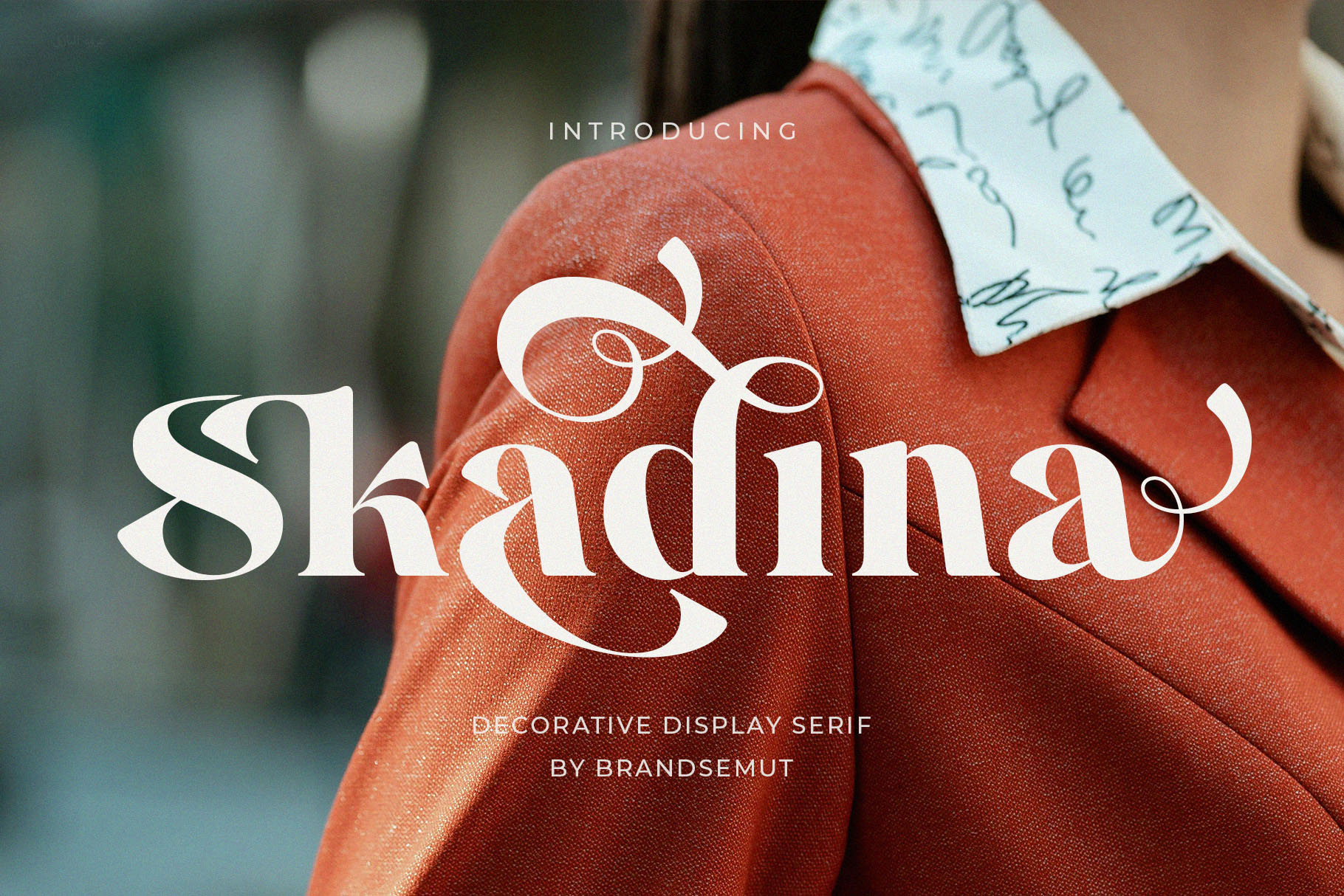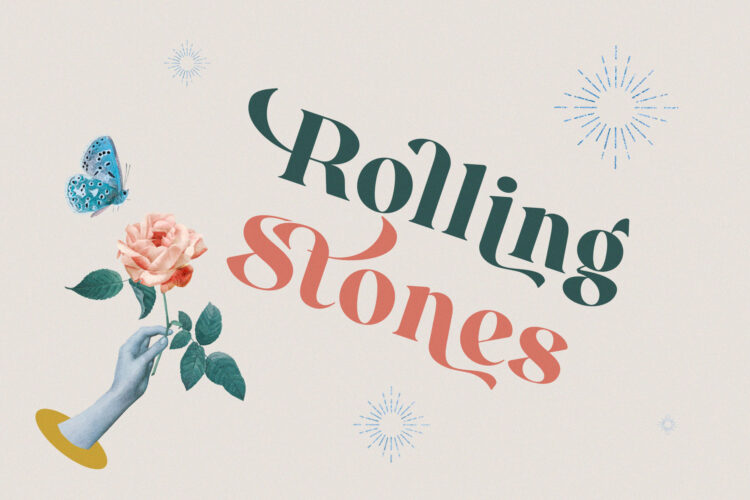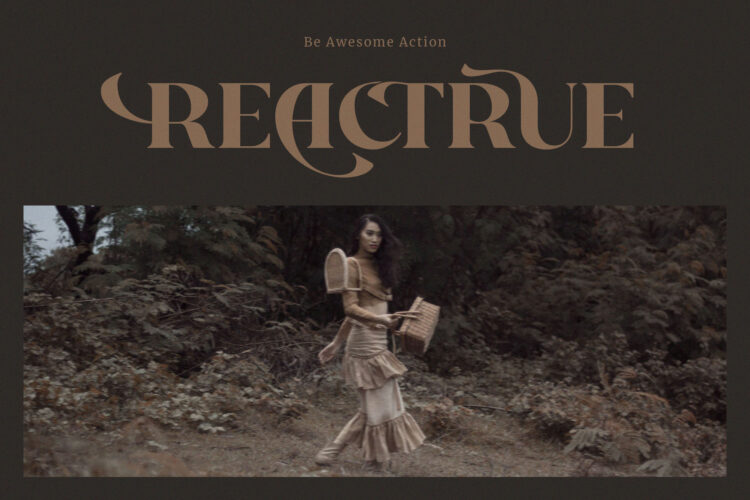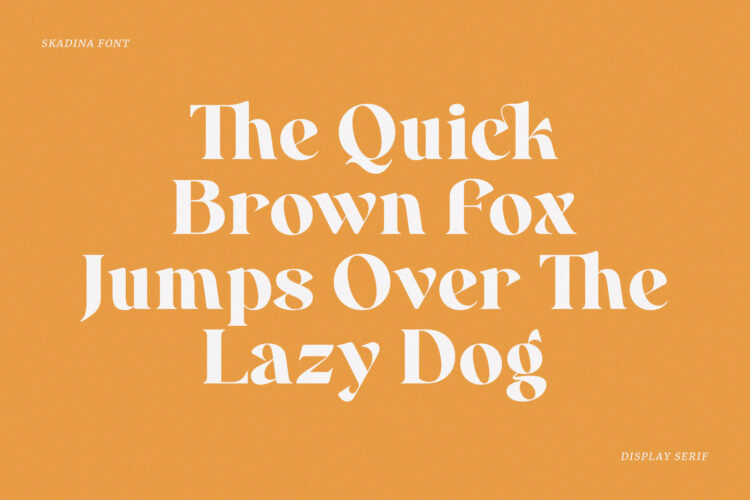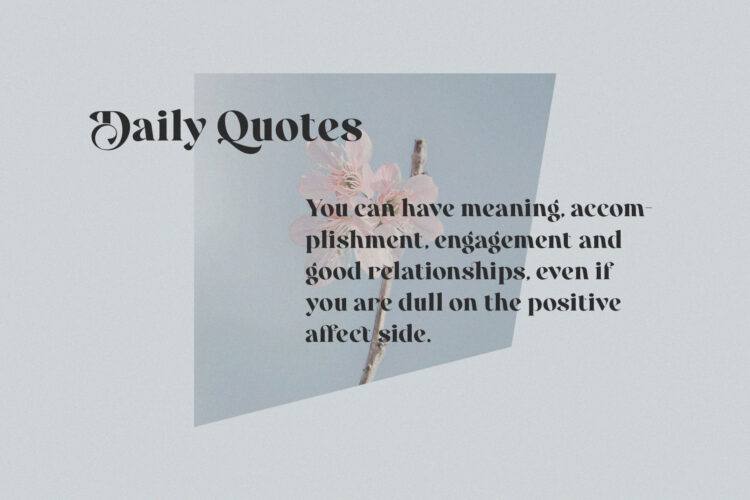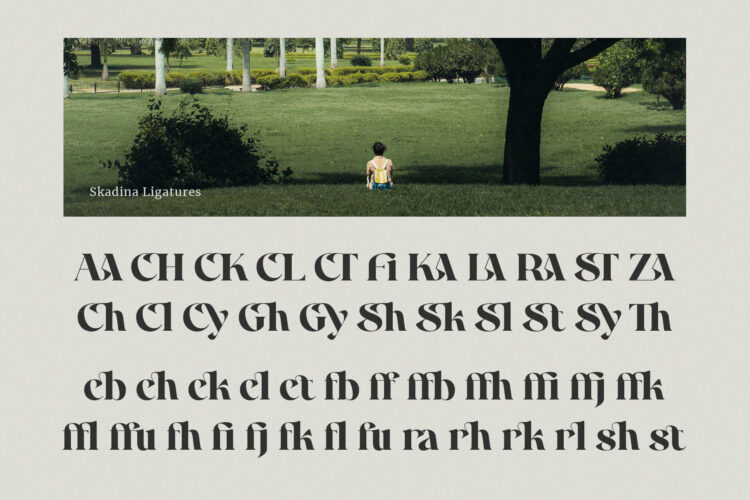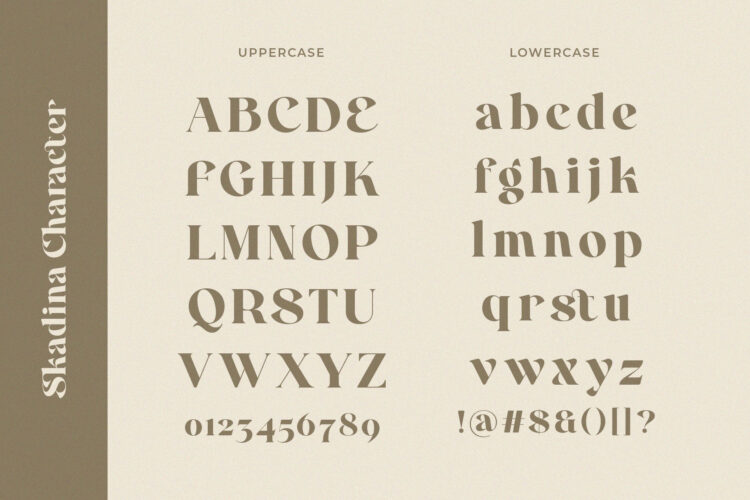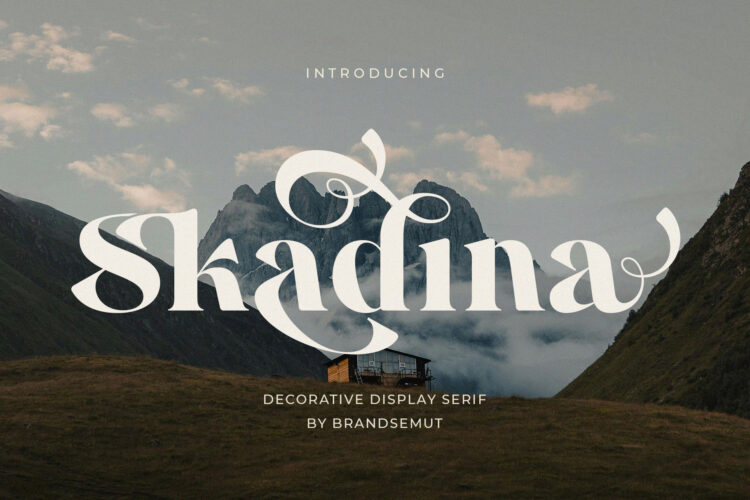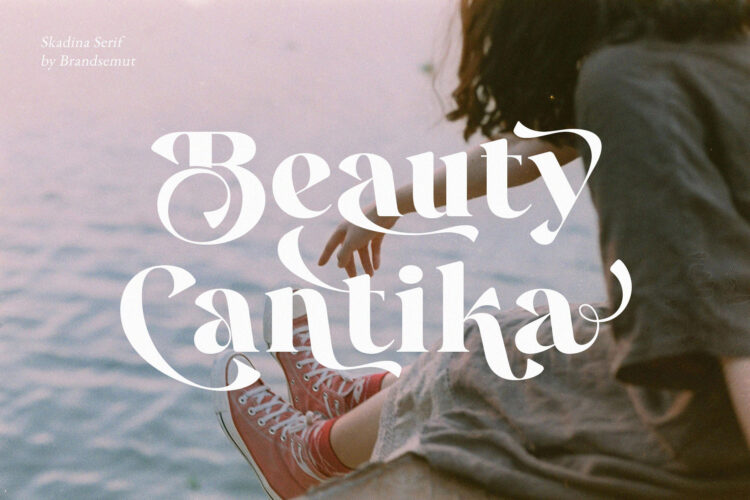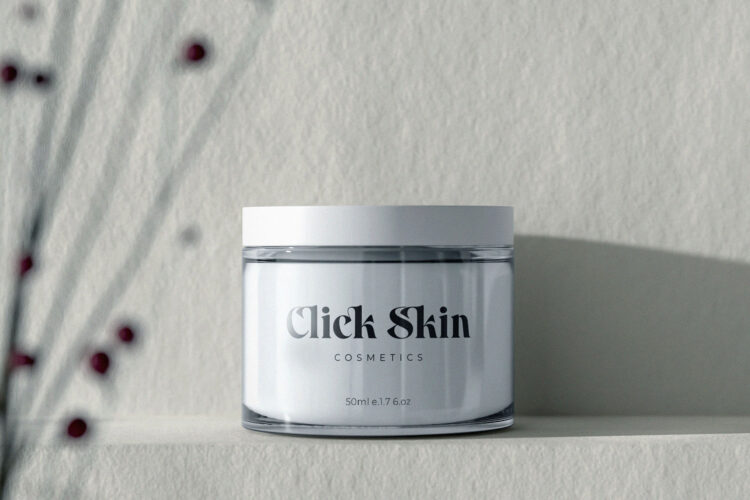
Introducing Skadina Decorative Display Serif.
Skadina is a elegant, classy and modern display serif, best used as a display for headings, logos, branding, magazines, product packaging and invitations. Skadina equipped with Ligature and many Alternates and come with clean lines and smooth curves give any project an extra touch of class.